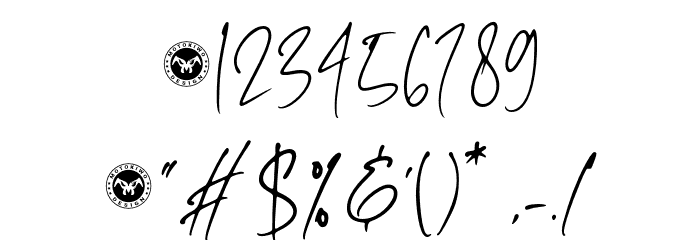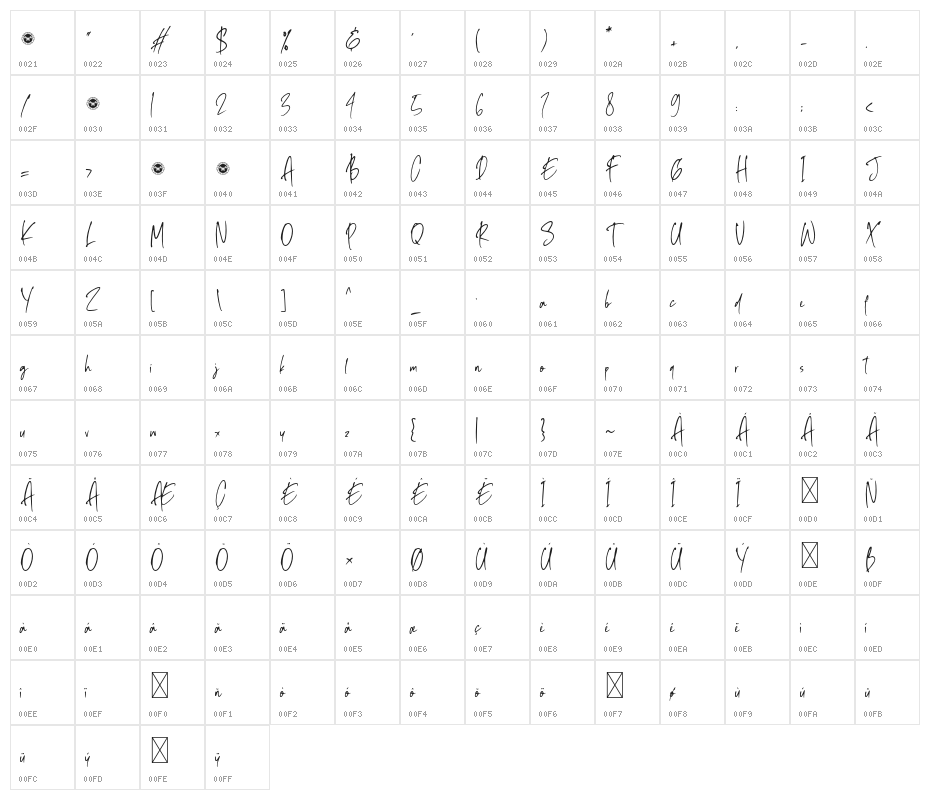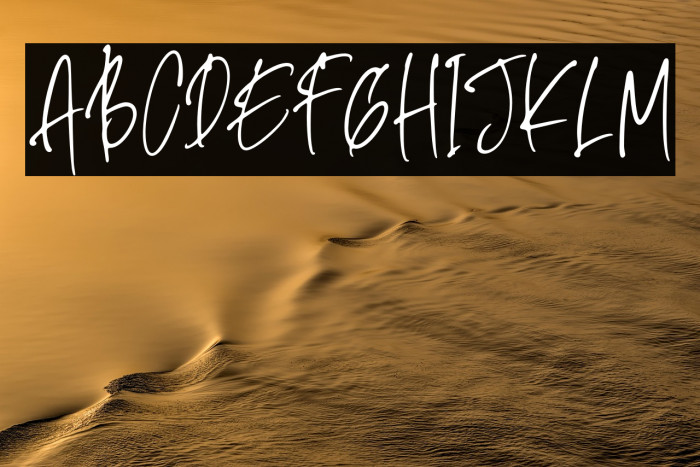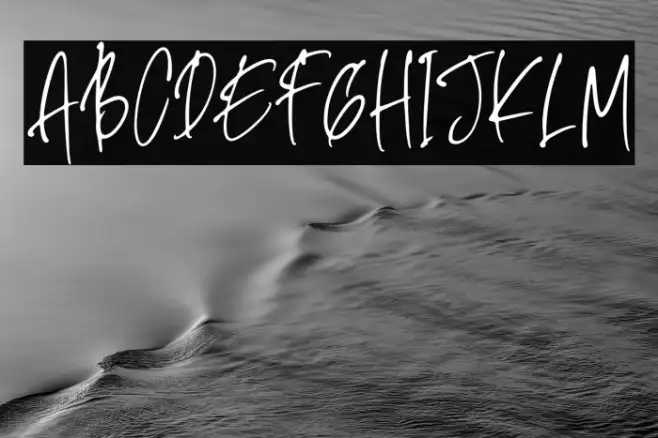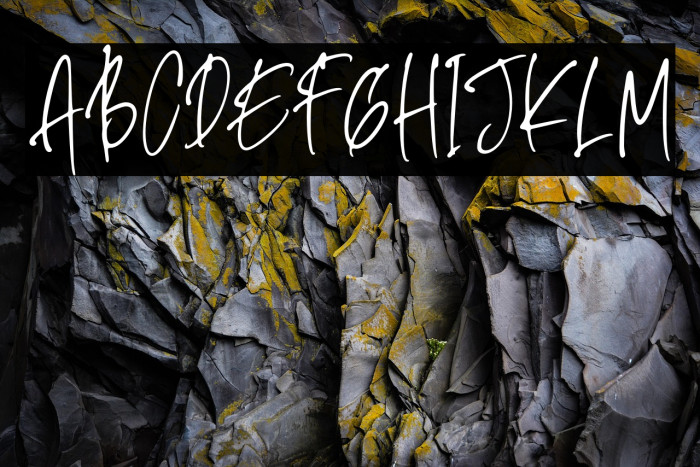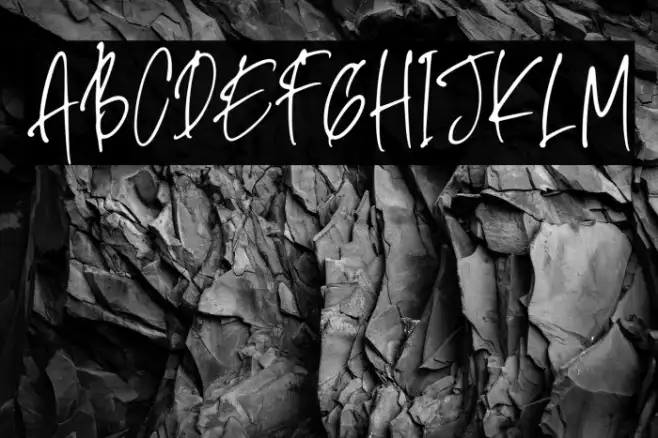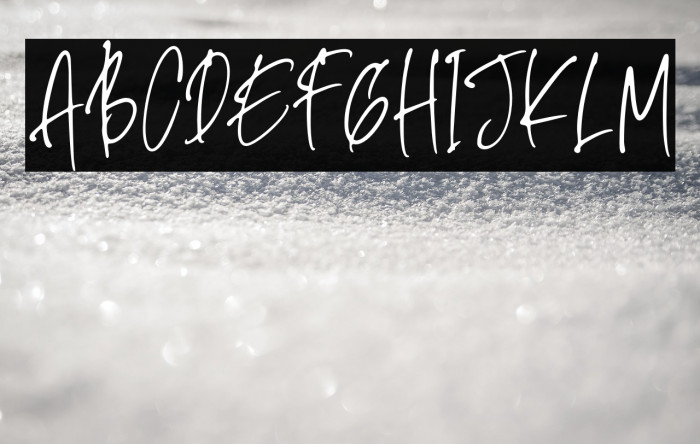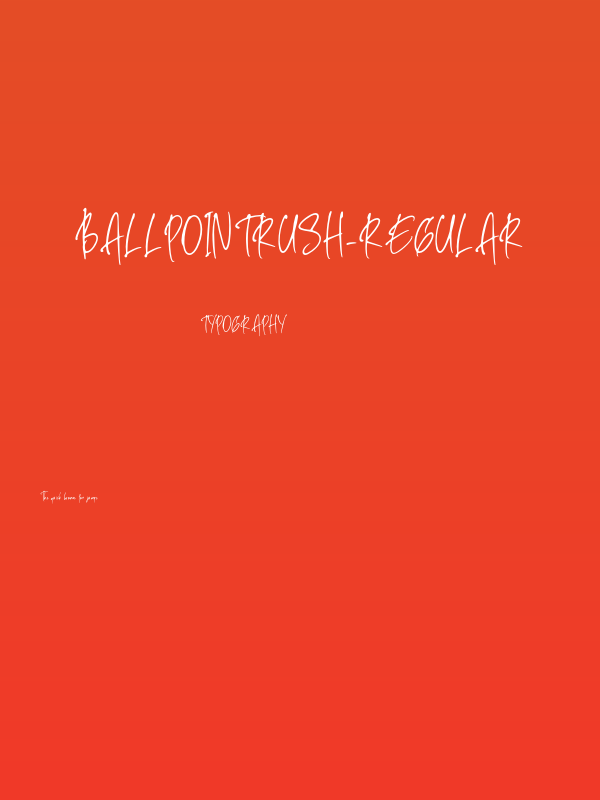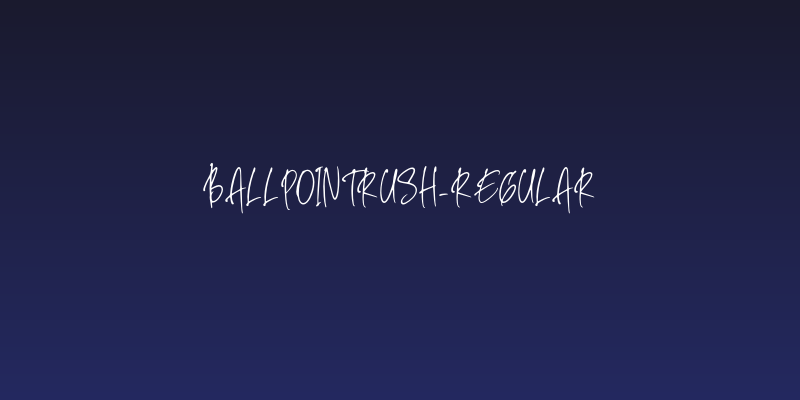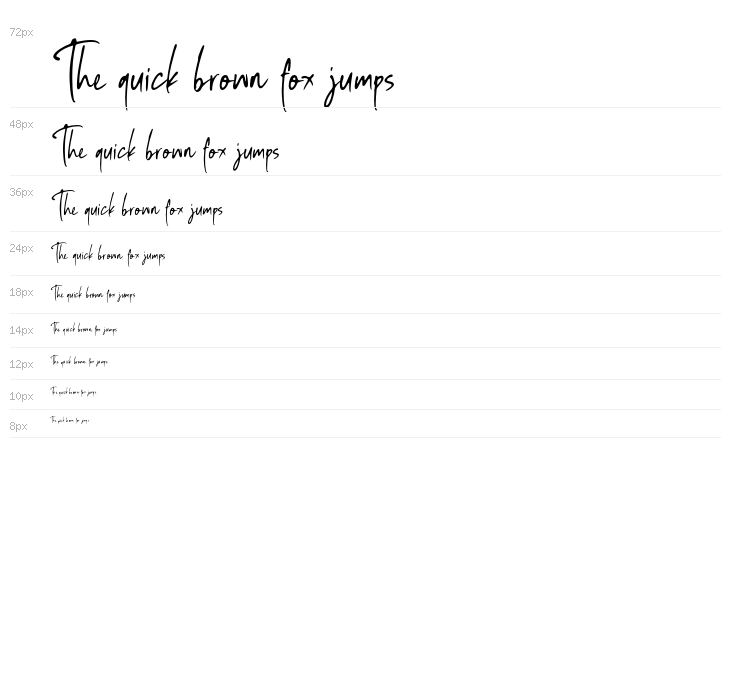
BallpointRush-Regular Font
BallpointRush-Regular Description
This font exudes a dynamic and energetic feel, reminiscent of a hurried handwritten note with a ballpoint pen. The characters are elongated and slightly slanted, giving a sense of motion and urgency. The strokes are uneven, with varying thickness that adds a personal touch, as if each letter was crafted with care. The uppercase letters are bold and prominent, while the lowercase letters maintain a consistent flow. Numbers and special characters follow the same lively style, making them stand out. This font is perfect for projects that require a personal, informal touch, such as invitations, greeting cards, or creative branding.
| Use Case | Logos, Headlines, Informal text |
| Proposed Projects | Ideal for invitations, greeting cards, creative branding, and personal notes. |